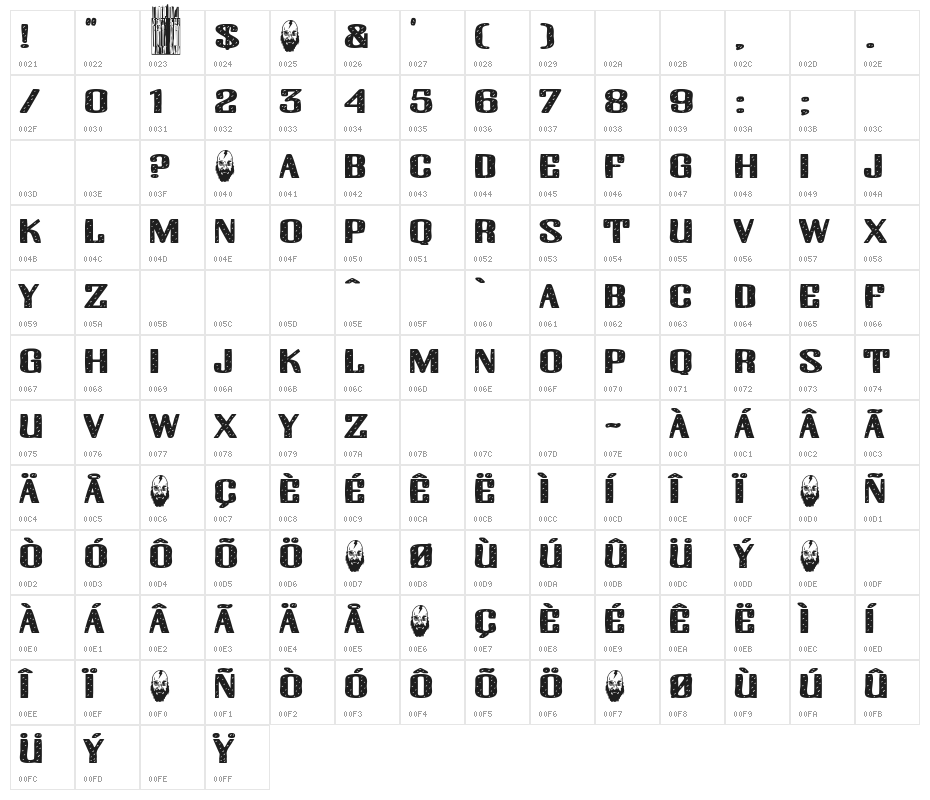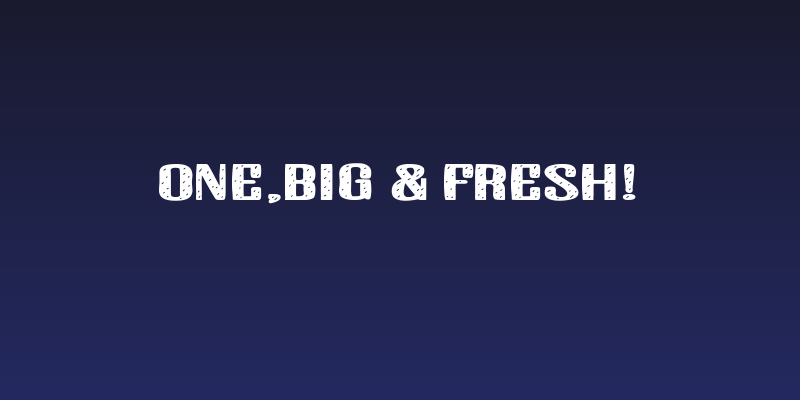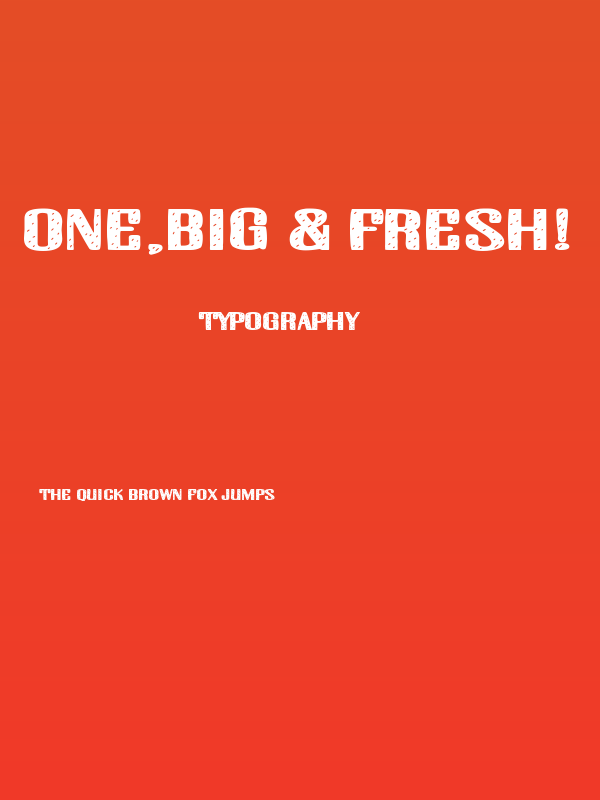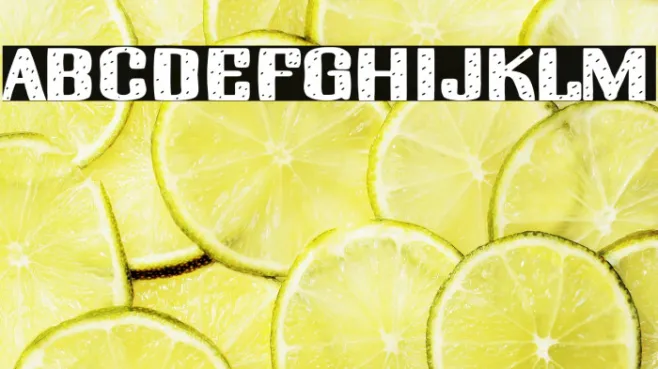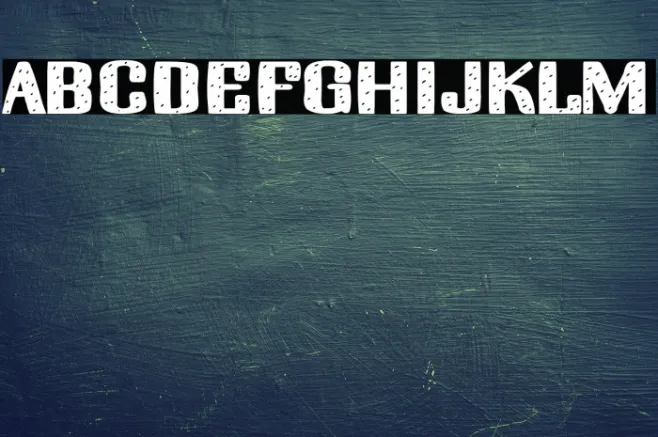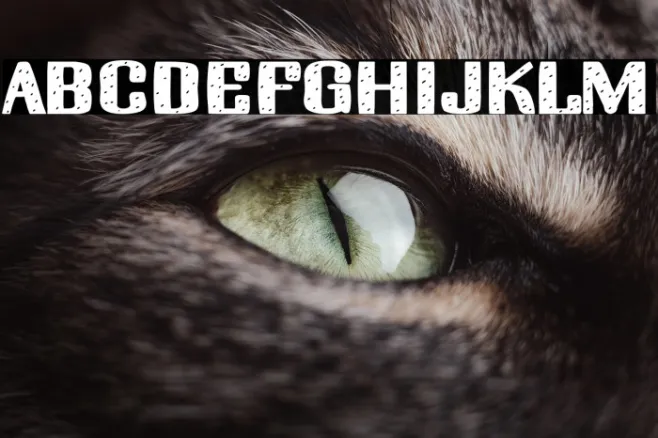
One,Big & Fresh! Font
One,Big & Fresh! Description
This font features a bold, decorative style with a distressed texture that gives it a rugged, hand-crafted appearance. The uppercase and lowercase letters maintain a consistent weight, with a slightly condensed form that enhances its boldness. The numbers and special characters are designed to match the overall aesthetic, providing a cohesive look. The font's unique texture and bold presence make it ideal for projects that require a strong visual impact.
| Proposed Projects | Ideal for posters, logos, branding, and any design that requires a bold, eye-catching typeface. |